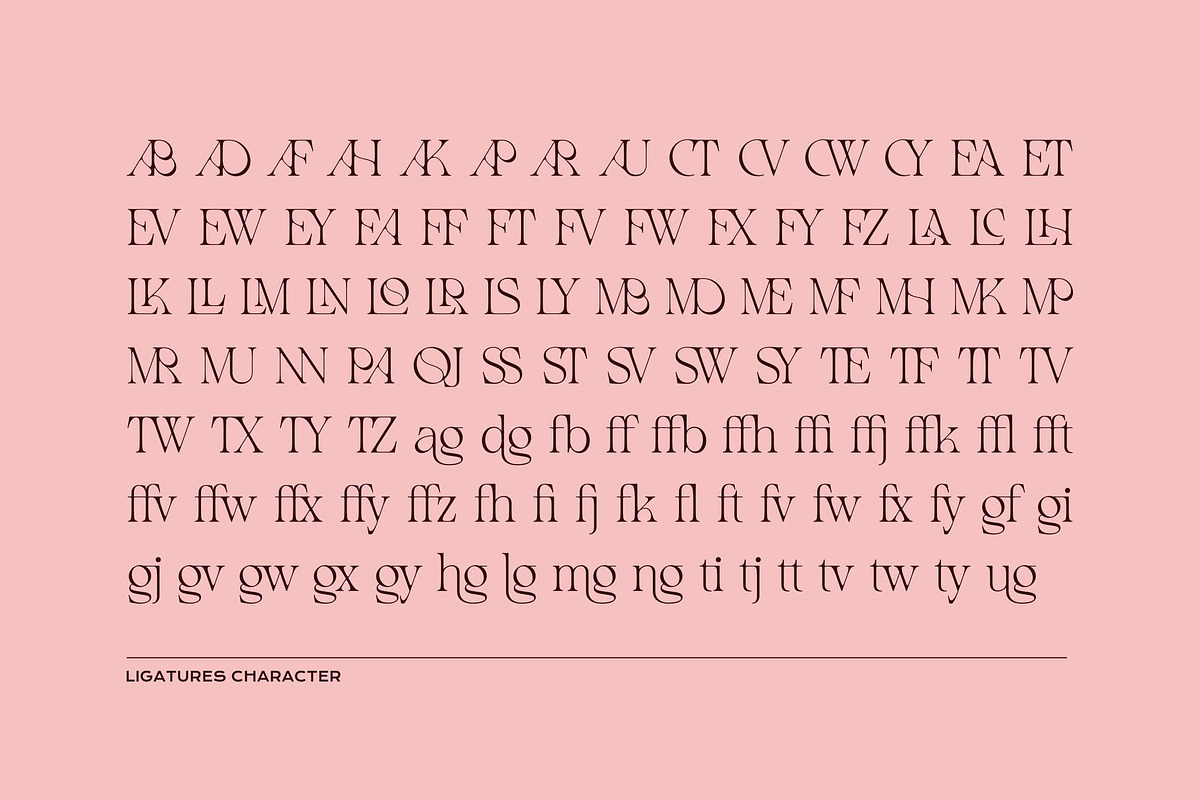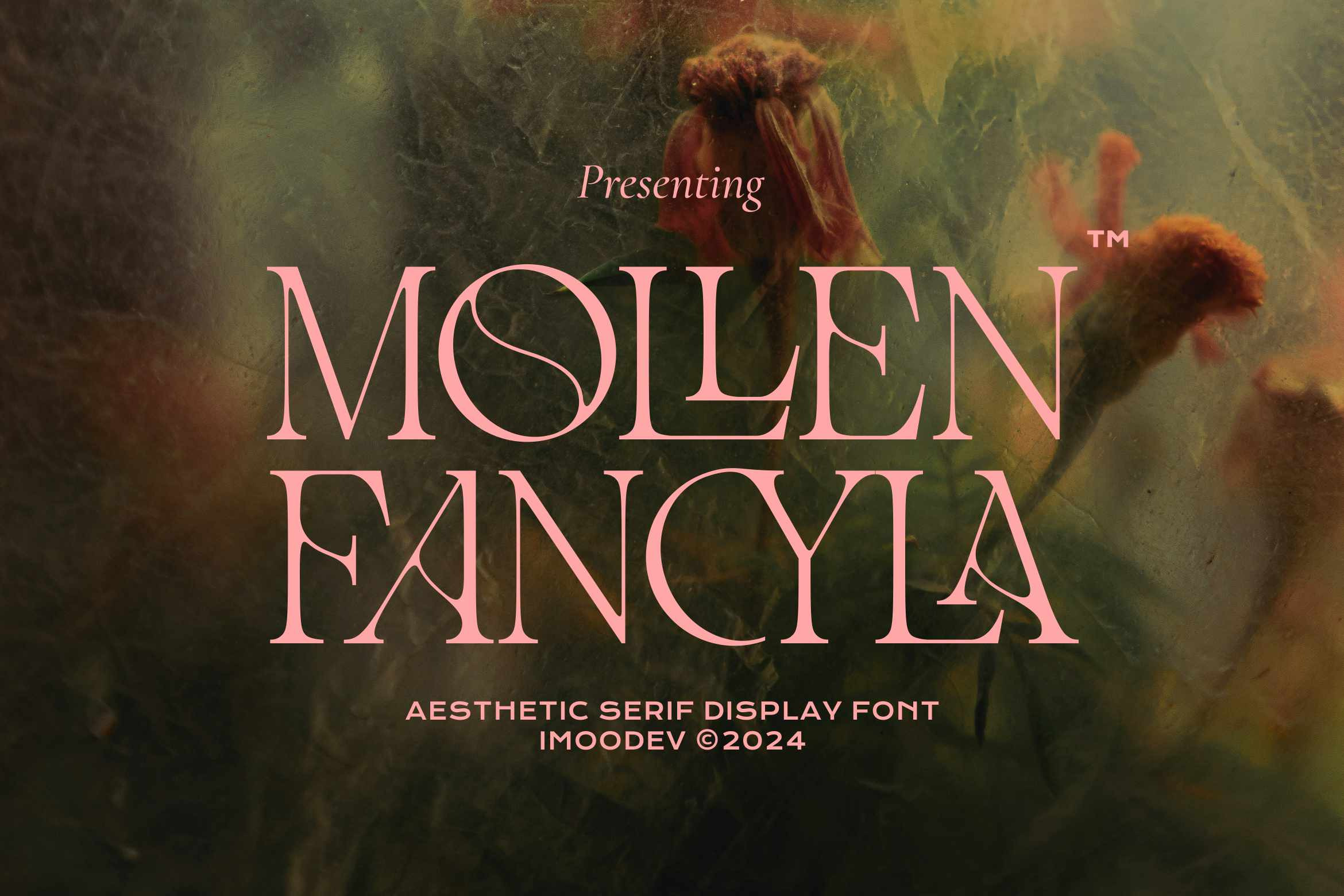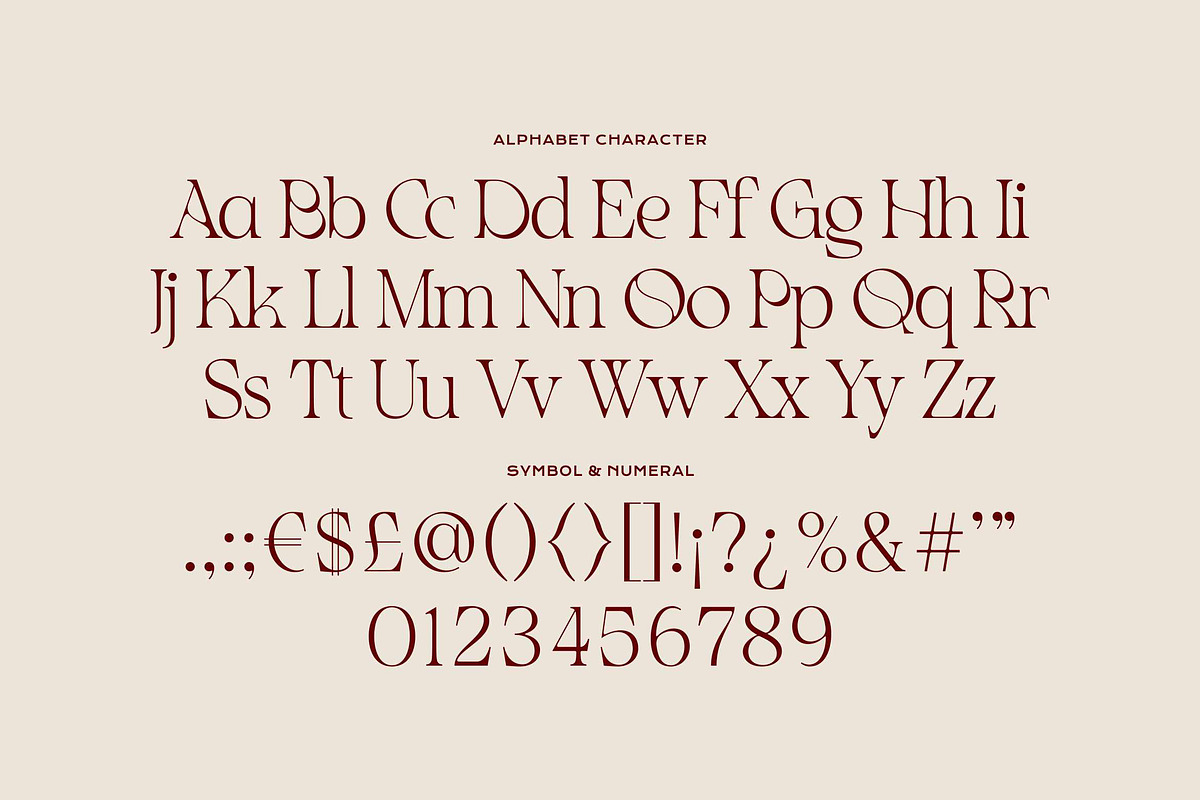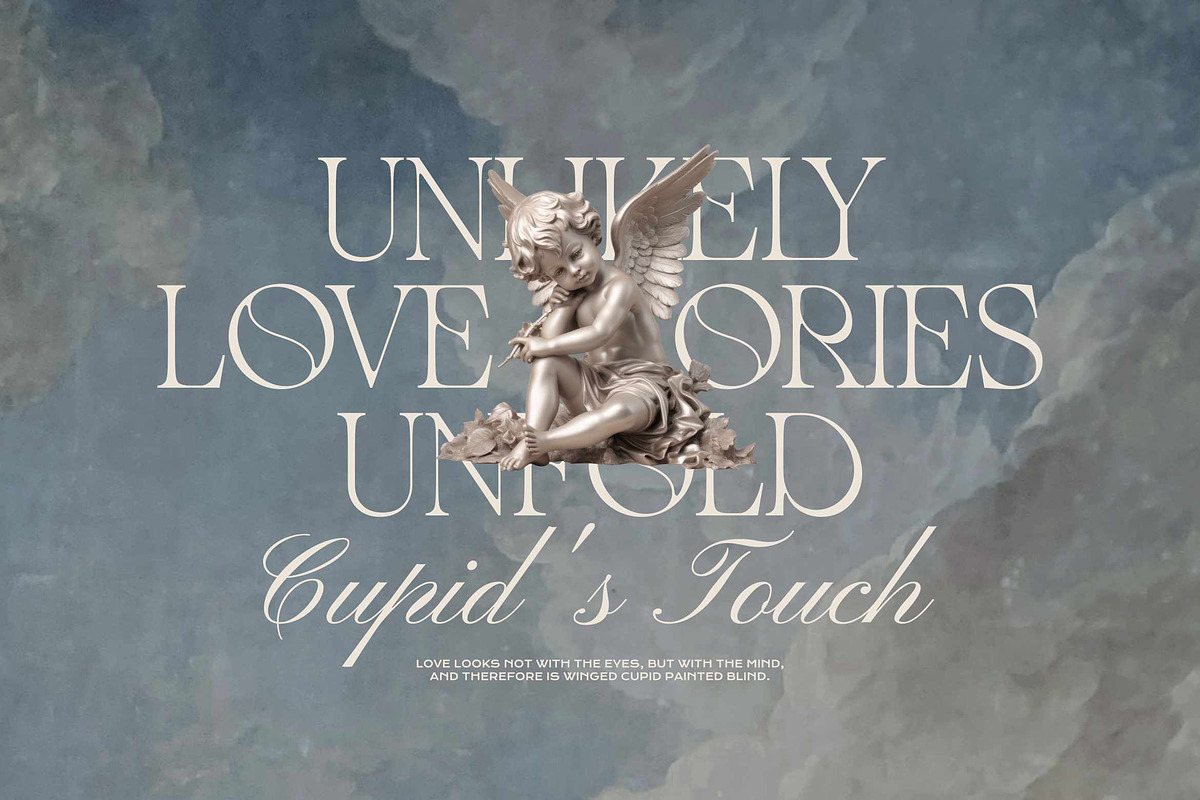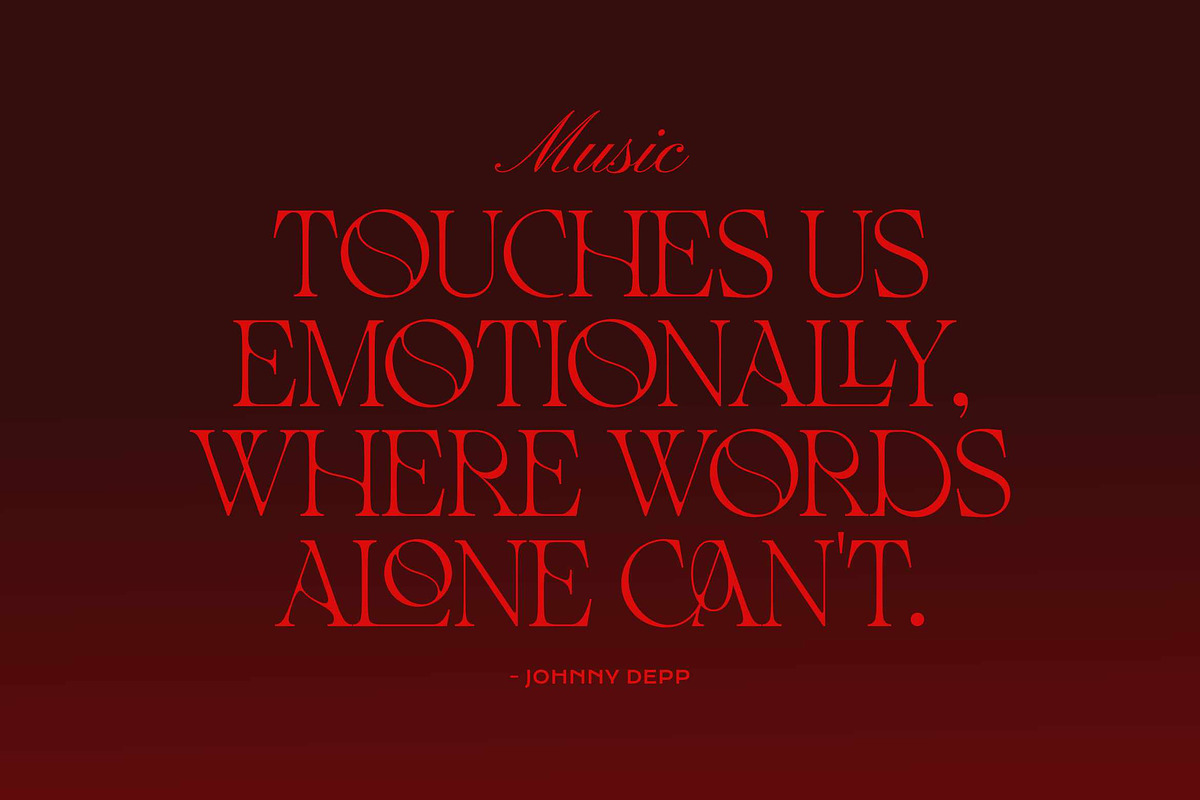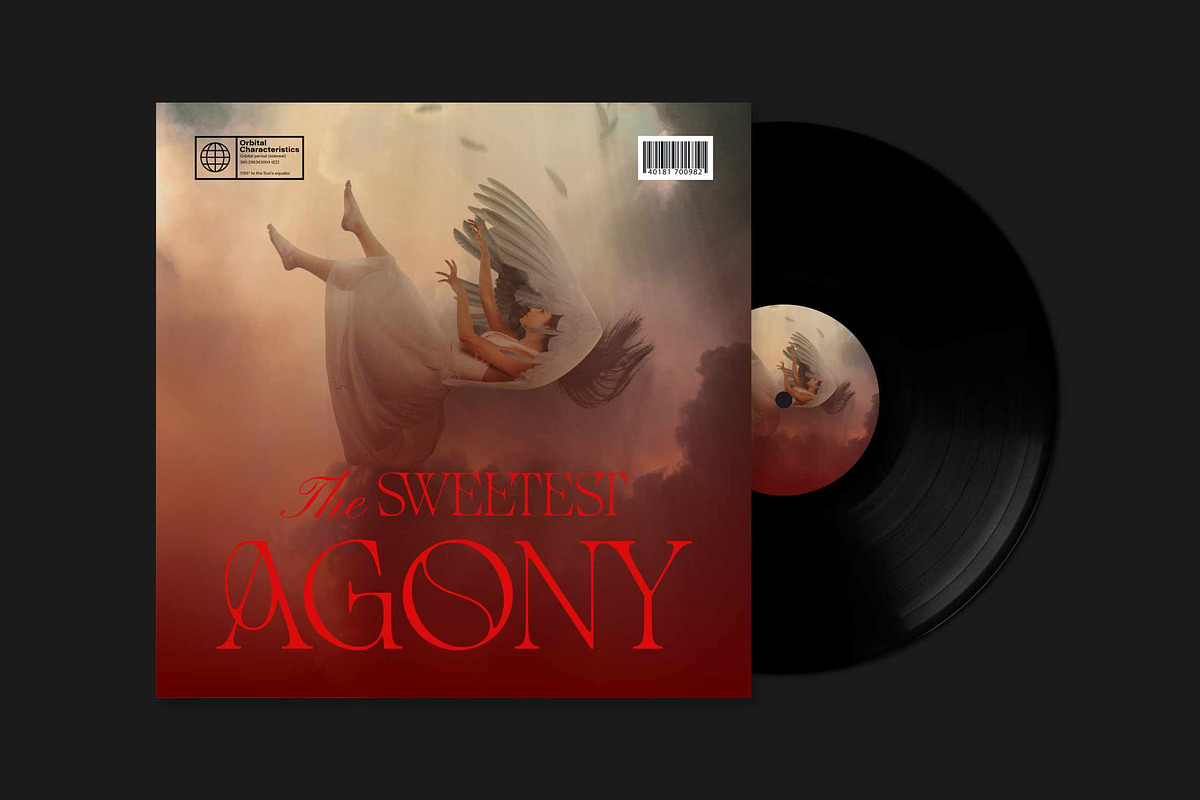
Mollen Fancyla Aesthetic Serif Font
Mollen Fancyla is a aesthetic serif font that seamlessly blends beauty and a feminine touch, infusing a sense of class and contemporary sophistication. Its graceful lines and modern aesthetic make it the perfect choice for projects seeking a balance of elegance and modernity and smooth curves every lettering a can embodies charm in, making your work look stunning and attractive.
A versatile font that works in both uppercase and lowercase sizes, suitable for a wide variety of projects such as a display font for headings, logo fonts, invitations, branding, book covers, magazine layouts, product packaging, product mockup, posters, labels, editorials, art deco, and any type of advertising purpose.